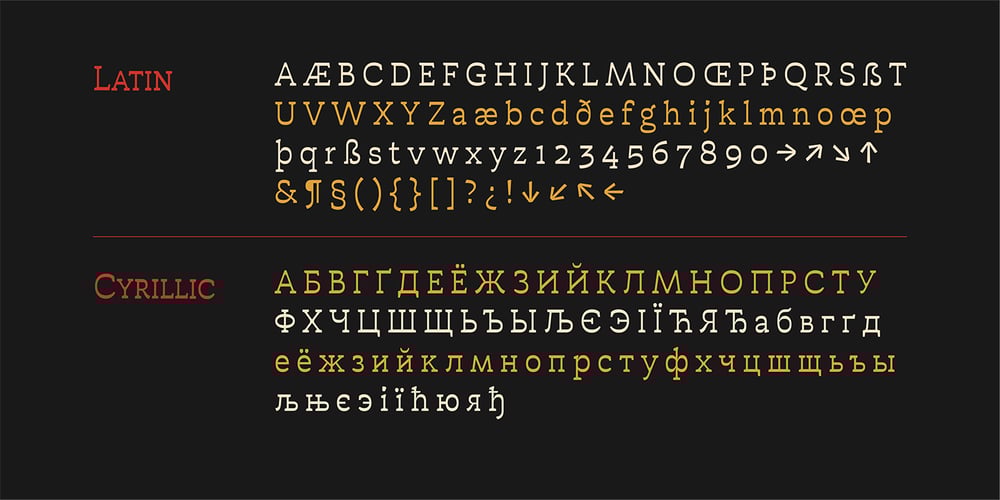
Hailgen Font Family was designed by Fadhl Waliy ul Haqq, Akufadhl and published by Akufadhl. Hailgen contains 5 styles and family package options. Hailgen is a Serif typeface that explores the flexibility in contrast, with a thicker horizontal and thinner vertical contrast. Designed specially for short texts or quotes. Hailgen comes with 5 weights ranging from Thin to Black and is armed with several opentype features and Latin and Cyrillic language support.